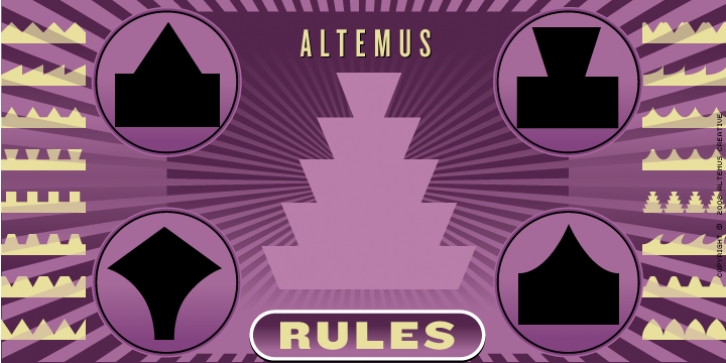
Altemus Rules downloadDesigner: Robert Altemus
Publisher: Altemus Creative
Rules is a collection of 174 geometric and shape rule designs including all flips and flops.
Rules Two is a collection of 174 underlined geometric and shape rule designs including all flips and flops.
Rules Three is a collection of 174 loop rule designs including all flips and flops.
Rules Four is a collection of 174 classic and scotch rule designs including all flips and flops.